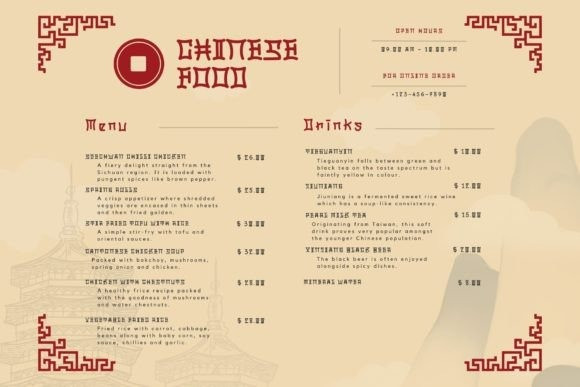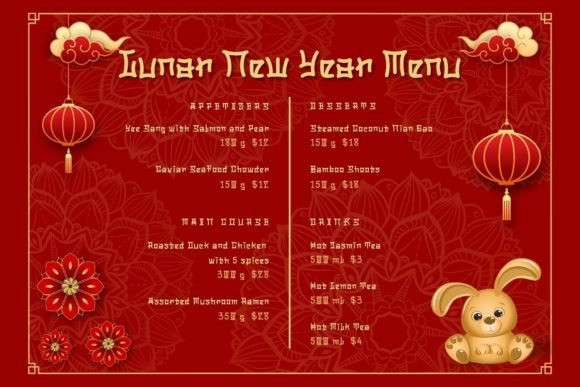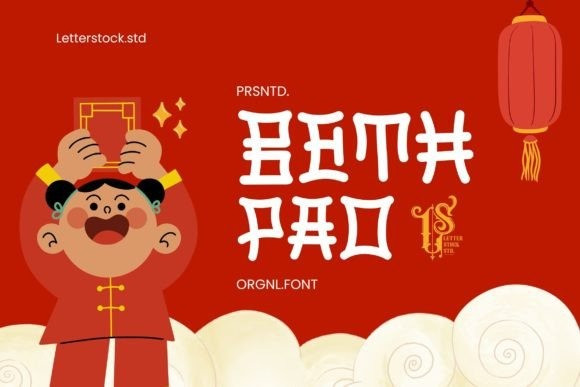
Beth Pao Font
Beth Pao Font a font meticulously crafted with original hand-drawn artistry and infused with the rich essence of Chinese typography. Perfect for adding a touch of sophistication to your projects, this font is ideal for posters, invitations, and branding materials, exuding a captivating charm that reflects the beauty of Chinese script.
Each character in Beth Pao is meticulously hand-drawn, ensuring a unique and authentic appearance that pays homage to the artistry of Chinese calligraphy.
Immerse yourself in the beauty of Chinese typography with the graceful strokes and intricate details of Beth Pao, capturing the essence of traditional Chinese script in every letter.